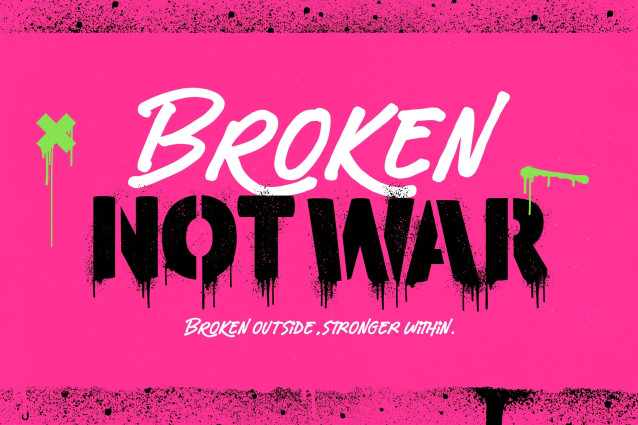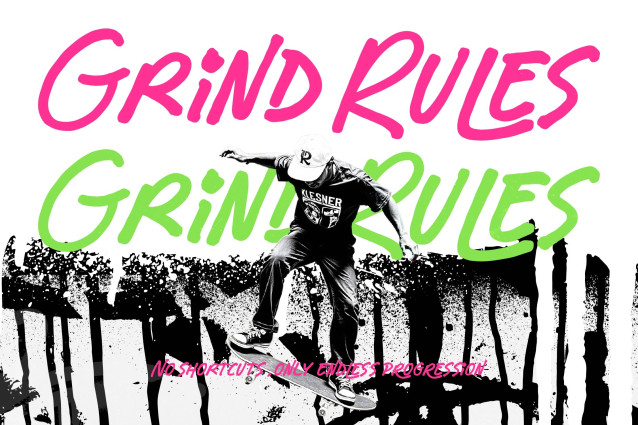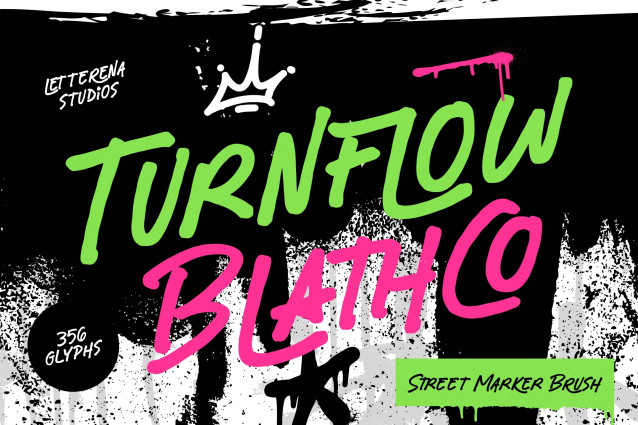
Unleash the raw energy of urban aesthetics with Turnflow Blathco – Street Marker Brush, a powerhouse typeface designed to command attention. This street-style brush font captures the authentic essence of hand-drawn marker strokes, offering a bold and expressive aesthetic that resonates with contemporary culture. Its fluid lines and organic textures provide an unapologetic visual impact, making it an essential asset for designers looking to inject a sense of rebellion and grit into their digital canvas.
Engineered for professional performance, Turnflow Blathco – Street Marker Brush features an impressive library of 356 glyphs that ensure every word feels unique. The meticulous craftsmanship behind each letterform maintains a perfect balance between controlled chaos and legibility. By integrating hand-drawn authenticity with modern digital standards, this font allows for seamless creative execution in both print and screen environments, providing the artistic edge required for high-tier production work.